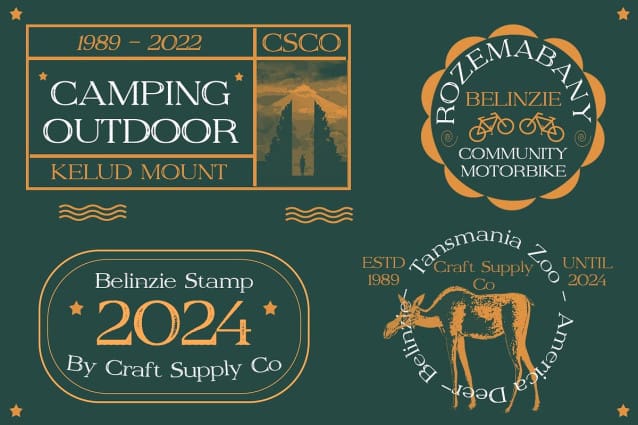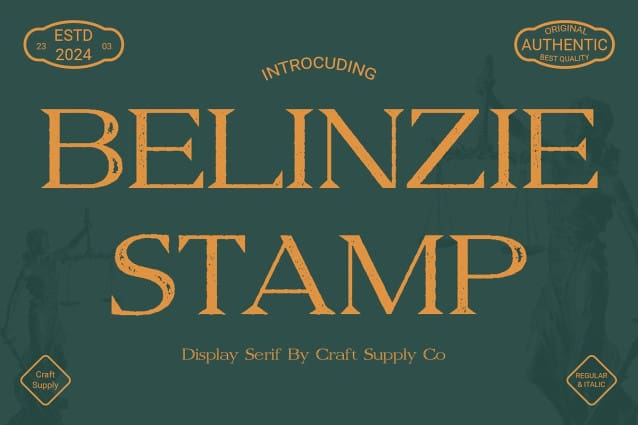
Belinzie Stamp Font
Belinzie Stamp Font: Adding Depth to Display Typography. Stamp-Inspired Serif Design Belinzie Stamp features a serif display font characterized by its distinctive stamp effect. Each letter is imbued with a sense of authenticity, reminiscent of vintage postal markings.
Embrace the Stamp Aesthetic With its unique stamp-inspired aesthetic, This font offers a refreshing take on traditional serif fonts. The rugged edges and subtle imperfections add charm and character to any display project.
Perfect for Display Needs Tailored specifically for display purposes, This font excels in capturing attention and making a bold statement. Whether used in posters, headlines, or branding materials, its striking appearance commands immediate focus.
Versatile Application Despite its stamp-inspired design, This font remains versatile in its application. From retro-themed designs to contemporary projects seeking a touch of nostalgia, this font adapts effortlessly to various contexts.
Vintage-Inspired Gem This font stands out as a unique addition to the realm of display typography. Its blend of serif elegance and stamp-inspired aesthetics creates a captivating visual appeal suitable for a wide range of design projects. Explore the charm of This font and elevate your displays with vintage flair.